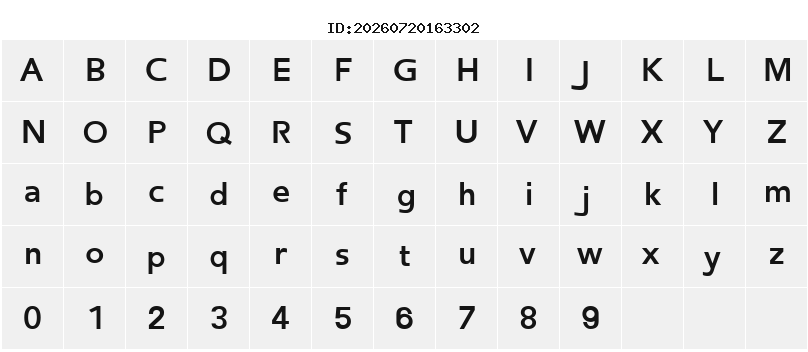
Frederic Preview
• Font Name: Frederic
• Full Font Name: Frederic Bold
• Designer: Matthieu Lonton
• Manufacturer: Matthieu Lonton
About Frederic.ttf
Frederic.ttf is a modern, elegant sans-serif font designed for ultimate readability and visual harmony. Perfect for branding, headlines, web design, and print materials.